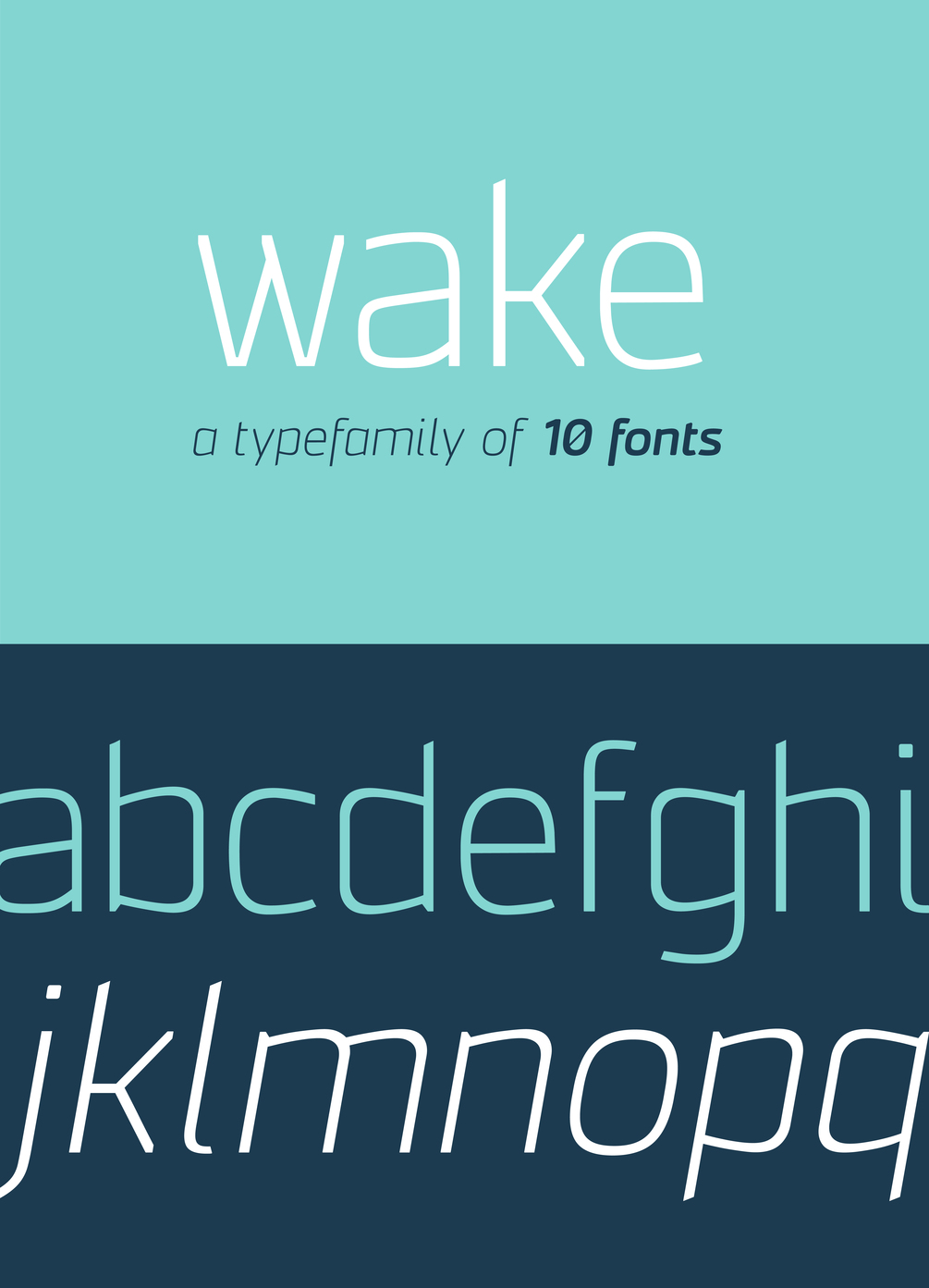
New Wake Font
New Wake Font - This font is a timeless bold sans serif with an elegant font style.
This font is a timeless bold sans serif with an elegant font style.
This Font Is A Timeless Bold Sans Serif With An Elegant Font Style.